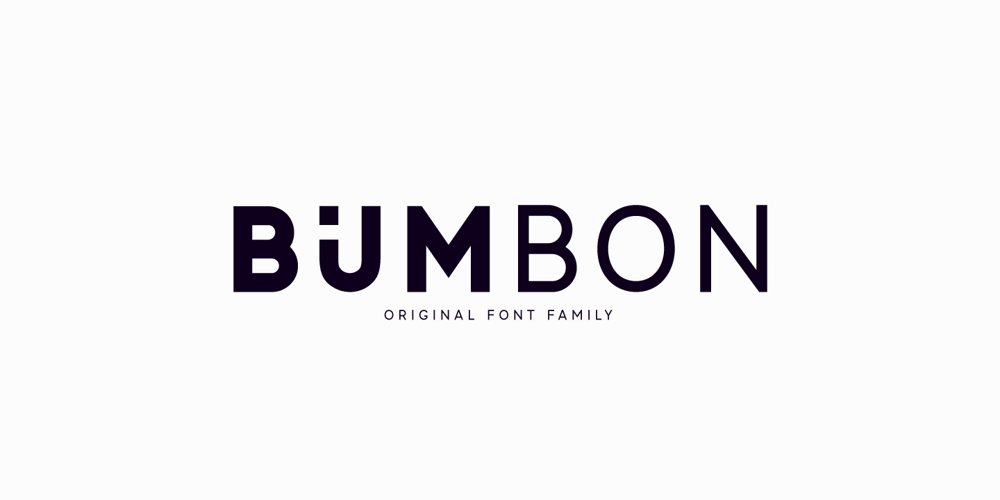
Bumbon Font Family was designed by Lauritta Ivanova and published by Luxfont. Bumbon contains 4 styles and family package options. Introducing unusual Sans Serif font family. Font is concise and minimalistic. But behind the apparent simplicity of the font is hidden the original feature in the form of modernized uppercase glyphs, which can be used as an accent in the header or logo. Pure letterings with excellent readability have 2 thicknesses. Font will emphasize the high status of the business and complement modern branding design, and the general versatility of the font provides for its widespread use in various directions and is combined with different styles in design. Balanced glyphs will fit into the typographic design and will not distract attention from the main point.Features: Bold, Bold Italic, Regular, Regular Italic Upgraded uppercase letters Kerning ld.luxfont@gmail.com